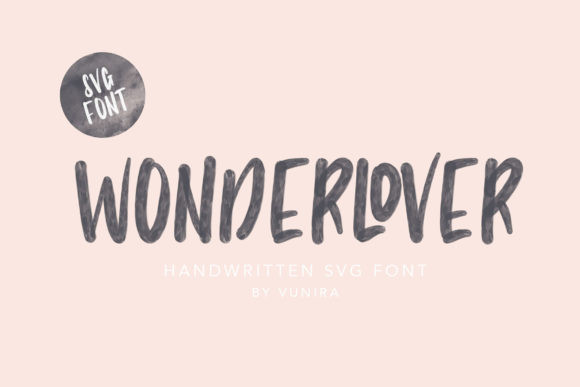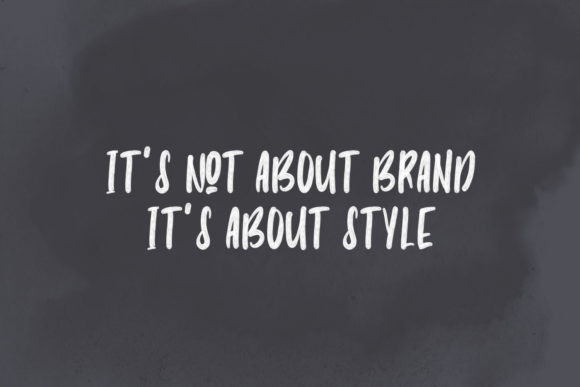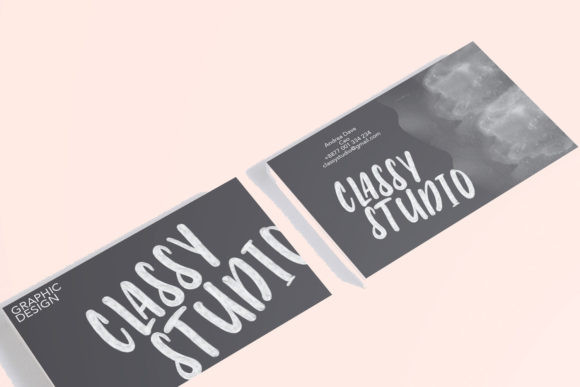
Wonderlover Font
Wonderlover is a great handwritten font. It is inspired by classic typography and brings its own unique style to any design project. This fantastic font is best suited for headlines of all sizes, as well as for blocks of text that have both maximum and minimum variations. Whether it’s for web, print, moving images or anything else – Wonderlover will look spectacular.